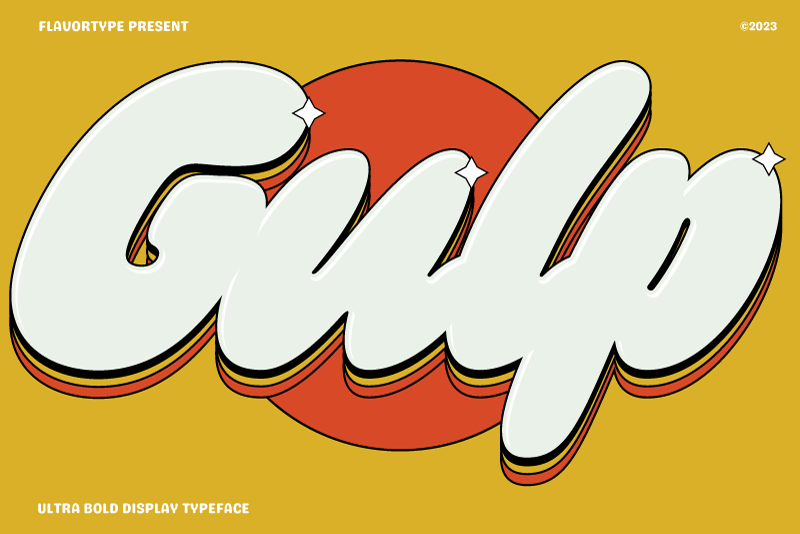
Font name: | Gulp |
Author: | Ilham Herry |
This font is for PERSONAL USE ONLY! To purchase a commercial license, visit: https://creativemarket.com/Flavortype/12761589-GULP GULP font is a playful and fun font inspired by pop art, hippie and comic book styles. It's groovy, funky and retro with an ultra-bold and fat appearance, making it perfect for eye-catching headers and short word texts. |